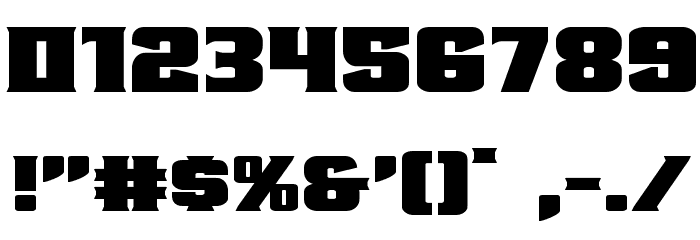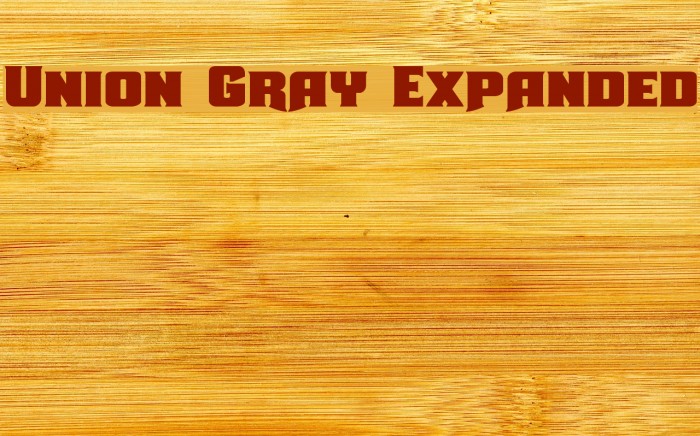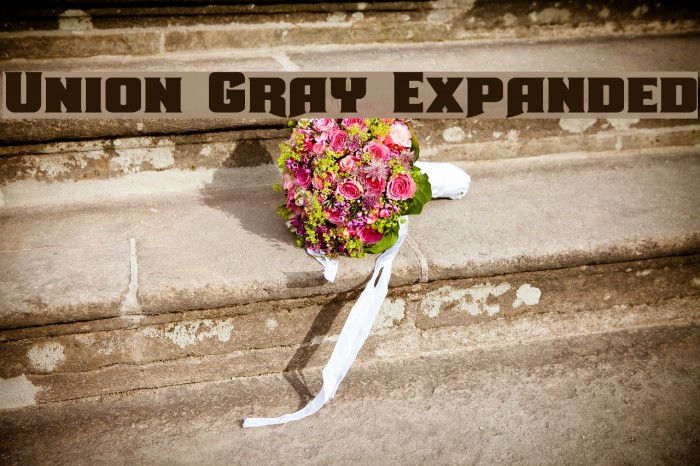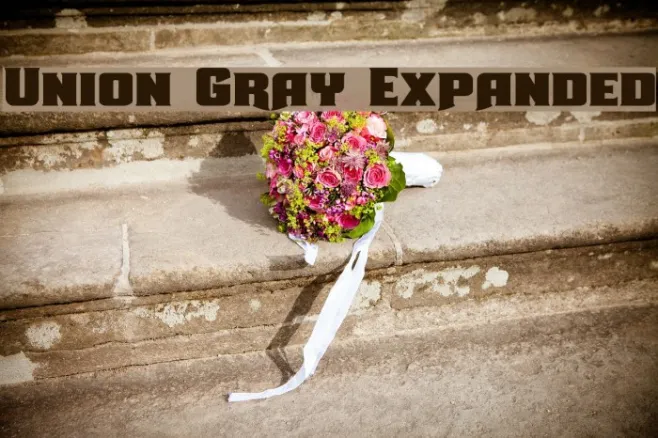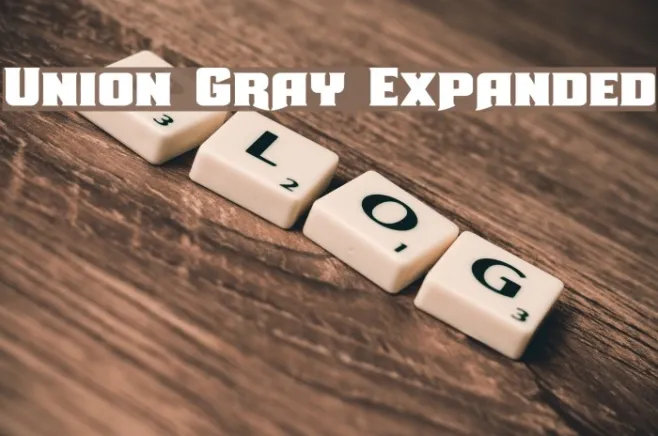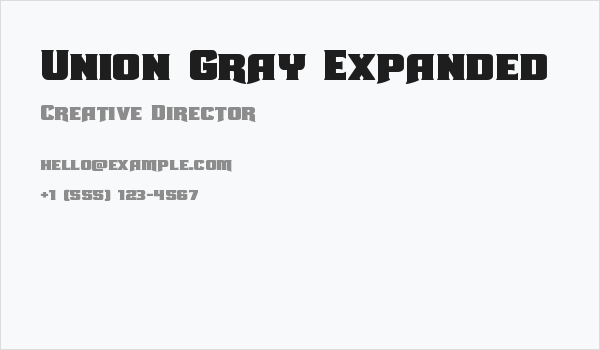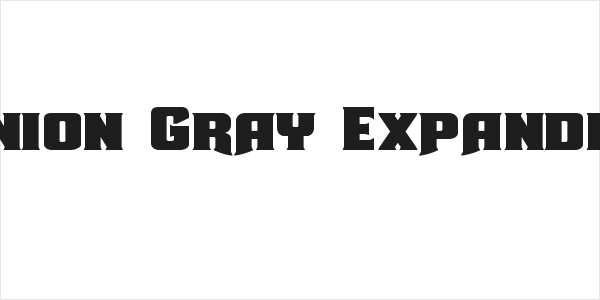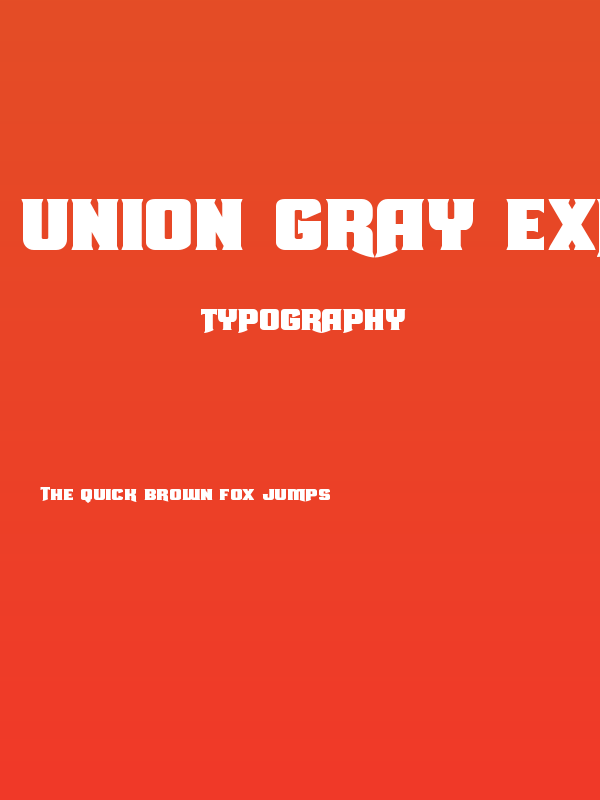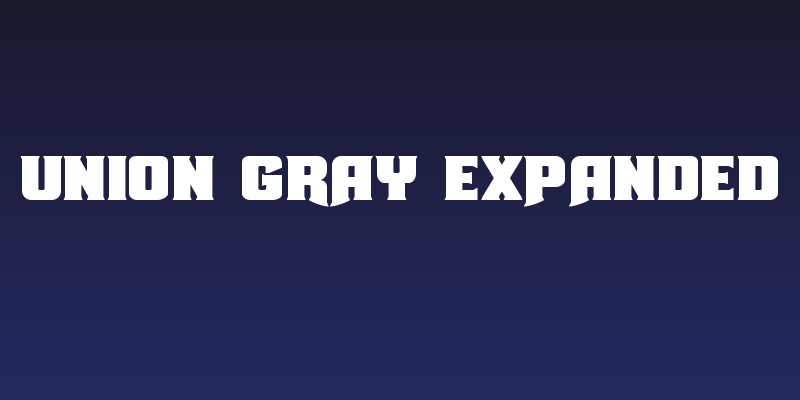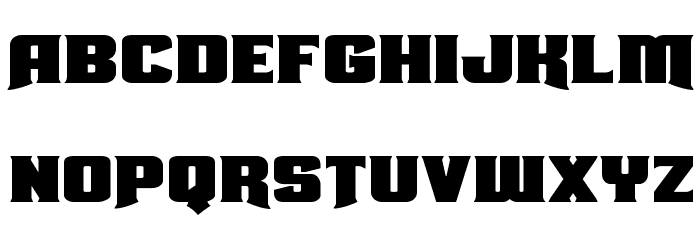
Union Gray Expanded Font
Union Gray Expanded Description
This font features a bold and striking design with a strong presence. The characters are wide and have a blocky appearance, giving them a robust and impactful look. The uppercase letters are particularly prominent, with sharp angles and a slightly condensed form that enhances their boldness. The numbers and special characters maintain this bold style, ensuring consistency across all elements. The font's design is reminiscent of vintage or retro styles, making it suitable for projects that require a strong visual impact.
| Proposed Projects | Ideal for posters, logos, headlines, and any design that requires a strong, impactful typeface. |